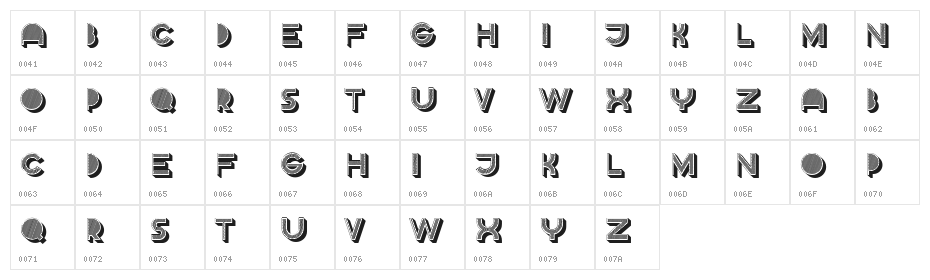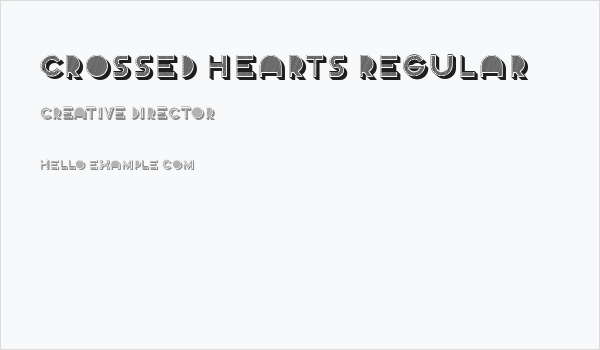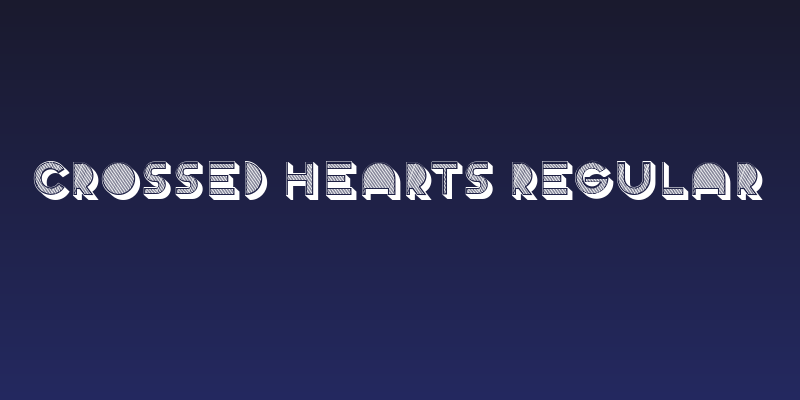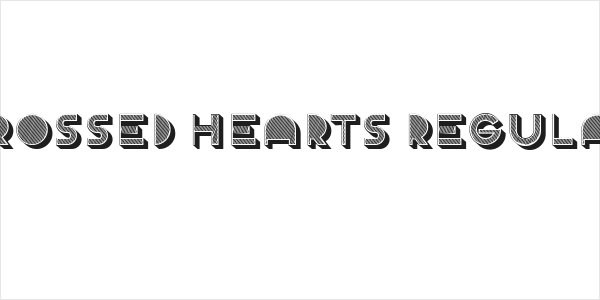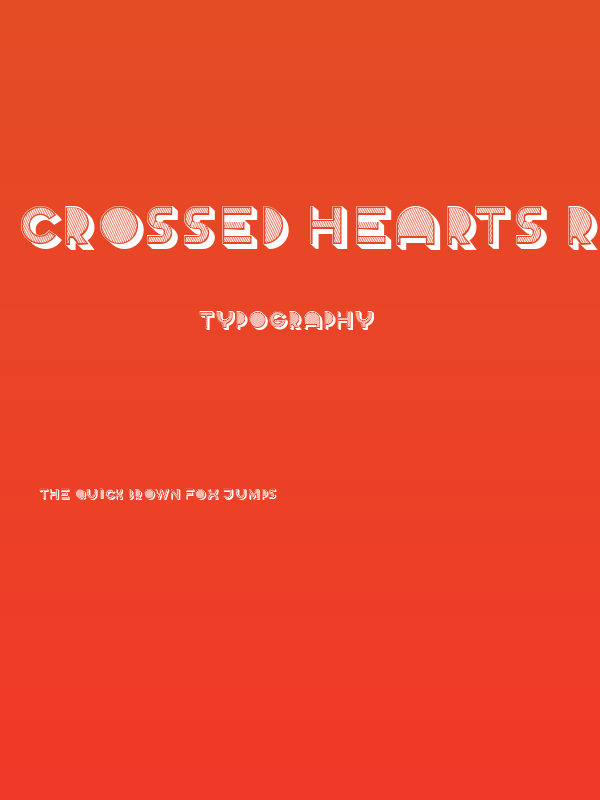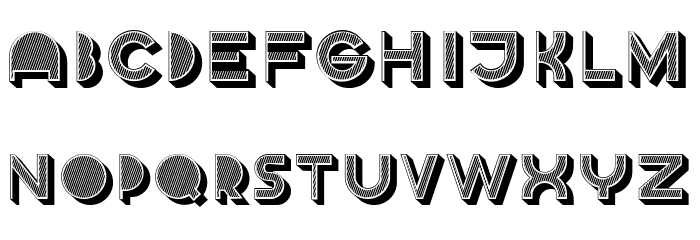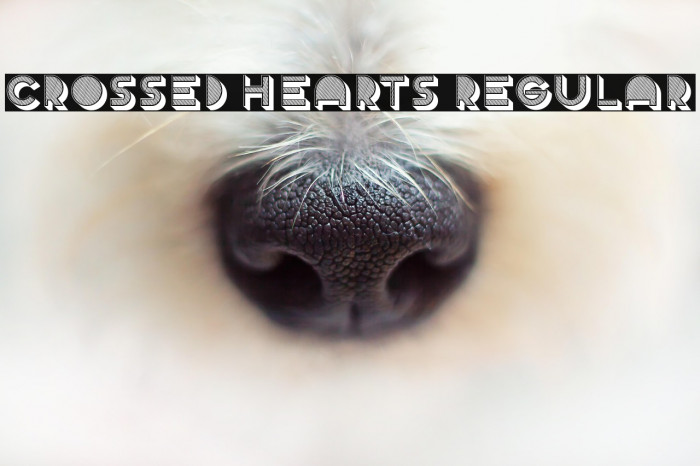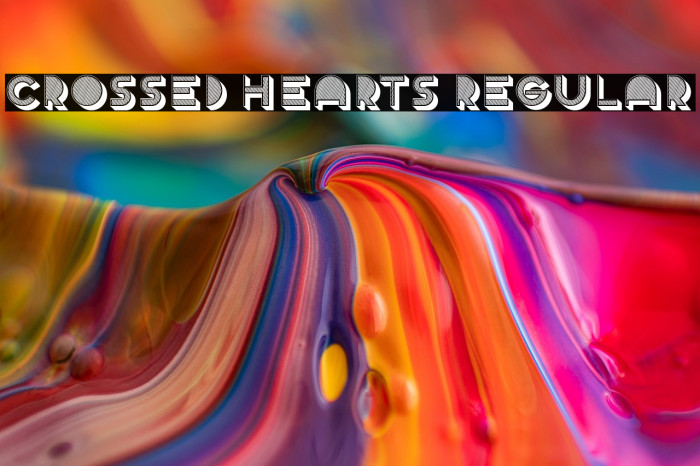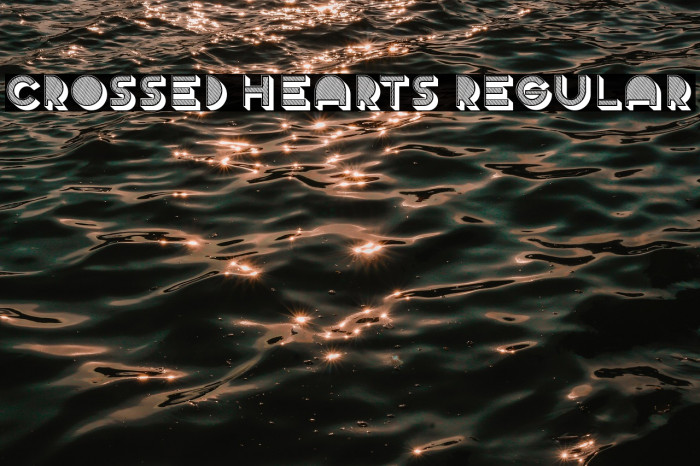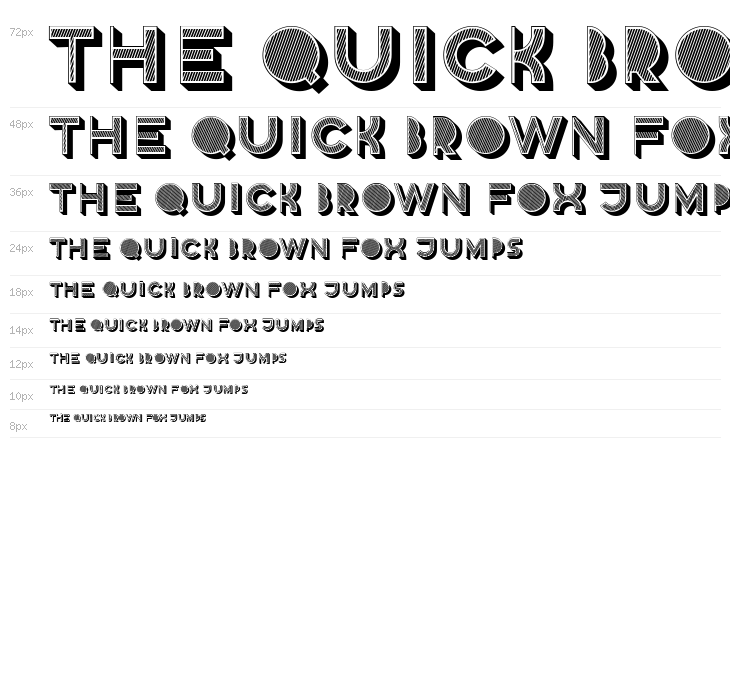
Crossed Hearts Regular Font
Crossed Hearts Regular Description
This font features a bold and decorative style with a unique pattern of diagonal lines crossing through each character. The uppercase letters are designed with a strong geometric structure, giving them a modern and eye-catching appearance. The font's distinct pattern adds a layer of depth and texture, making it ideal for projects that require a standout visual element. The characters maintain a consistent width, and the spacing between them is normal, ensuring readability while still offering a decorative flair. The high contrast between the thick strokes and the patterned fill enhances its visual impact.